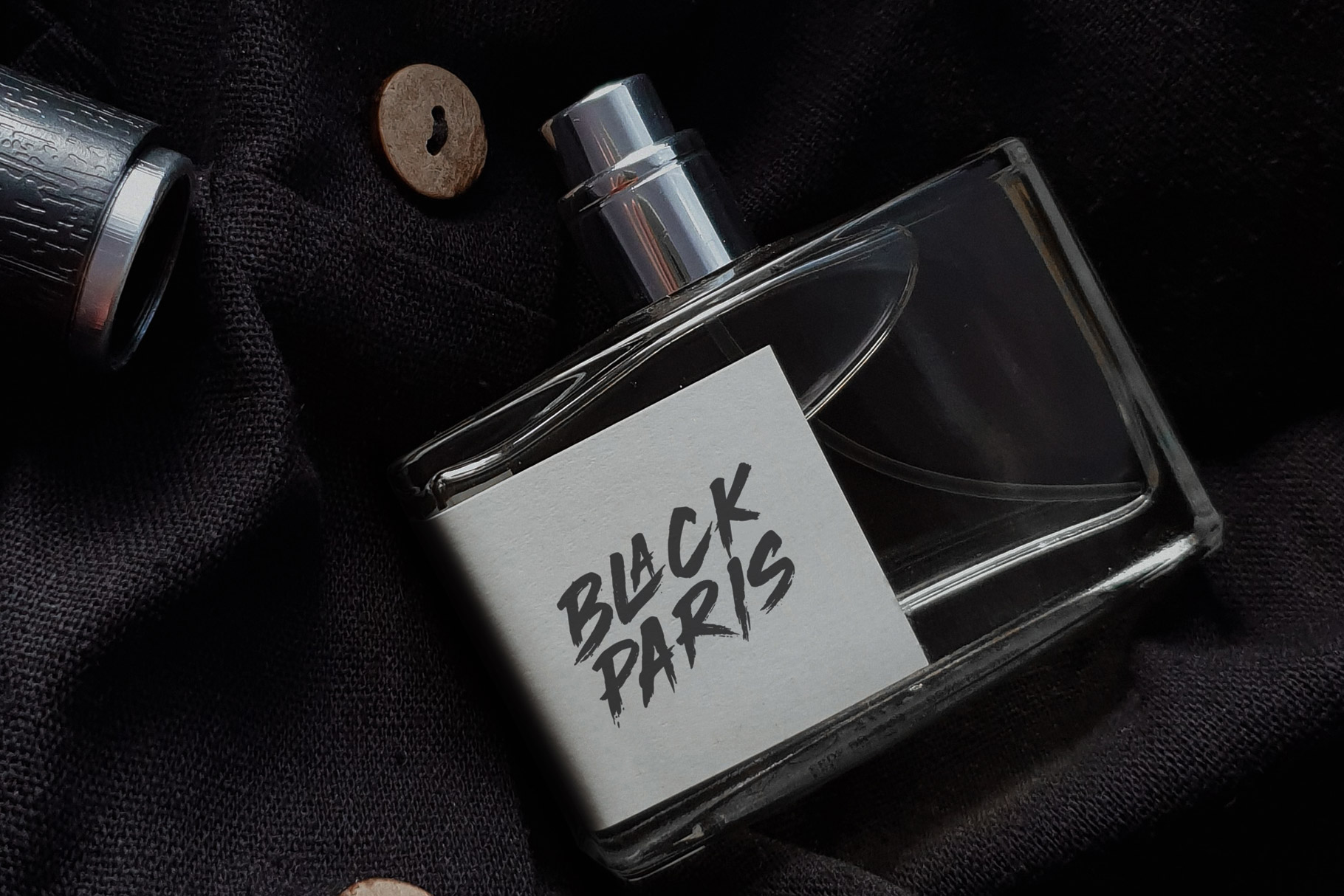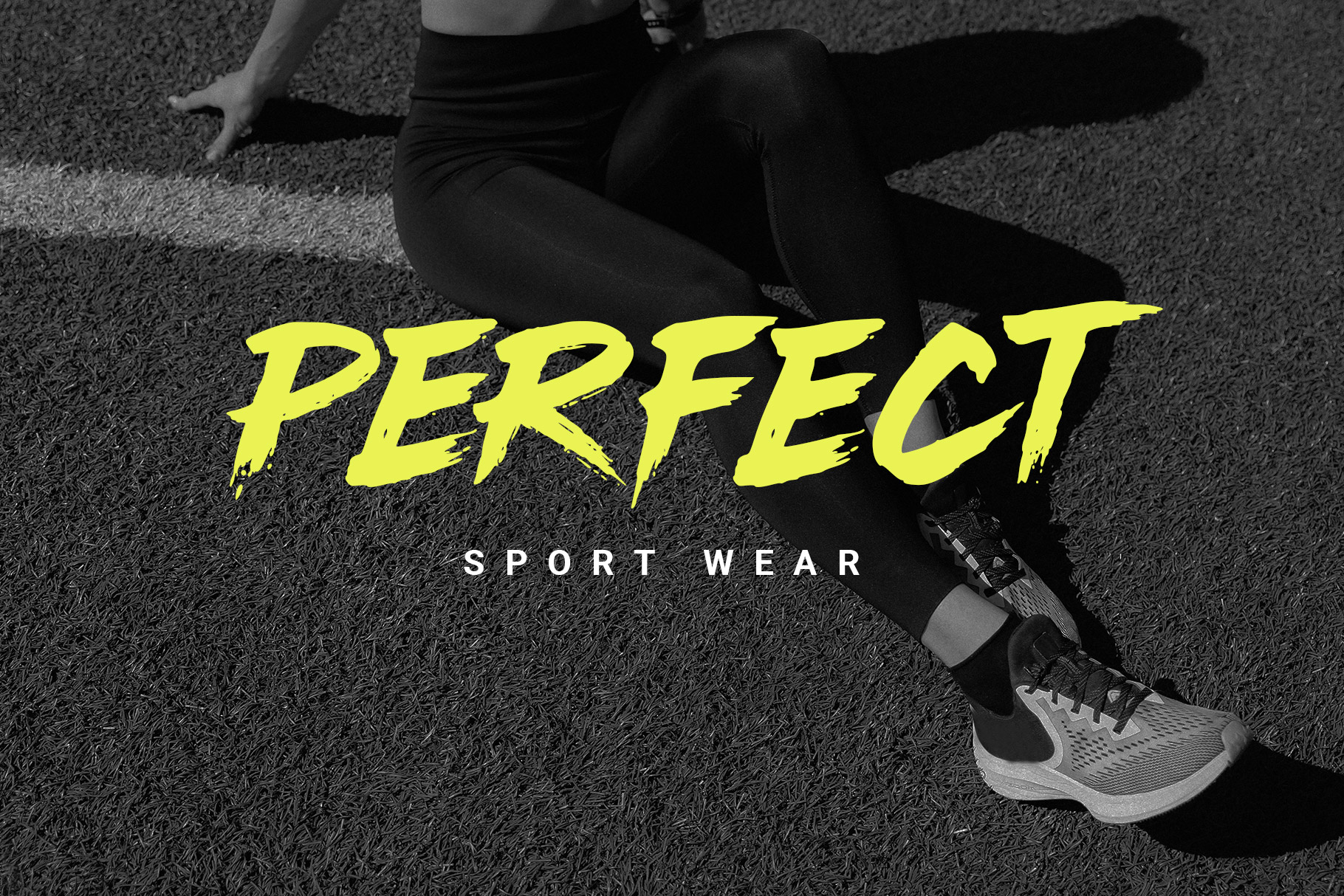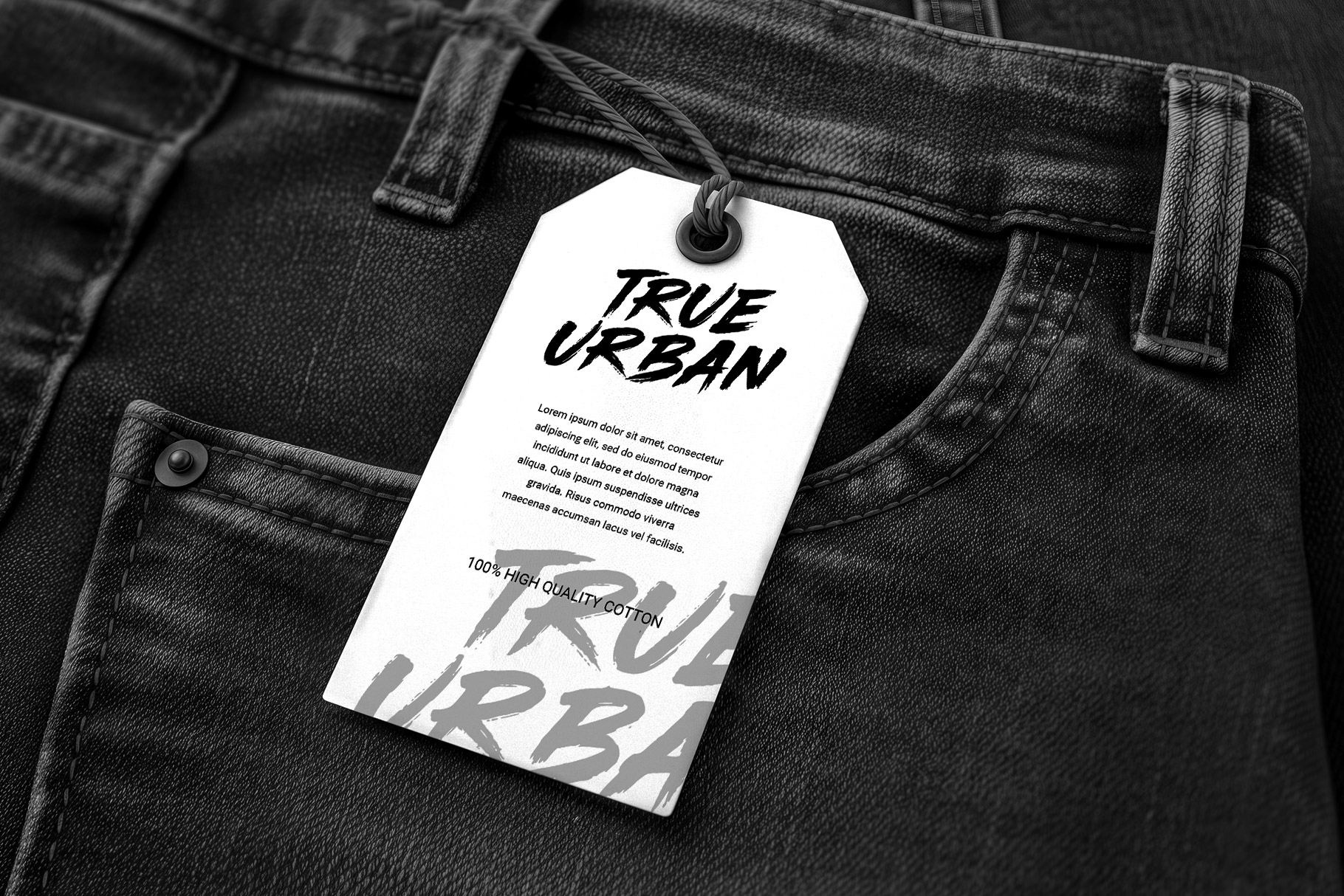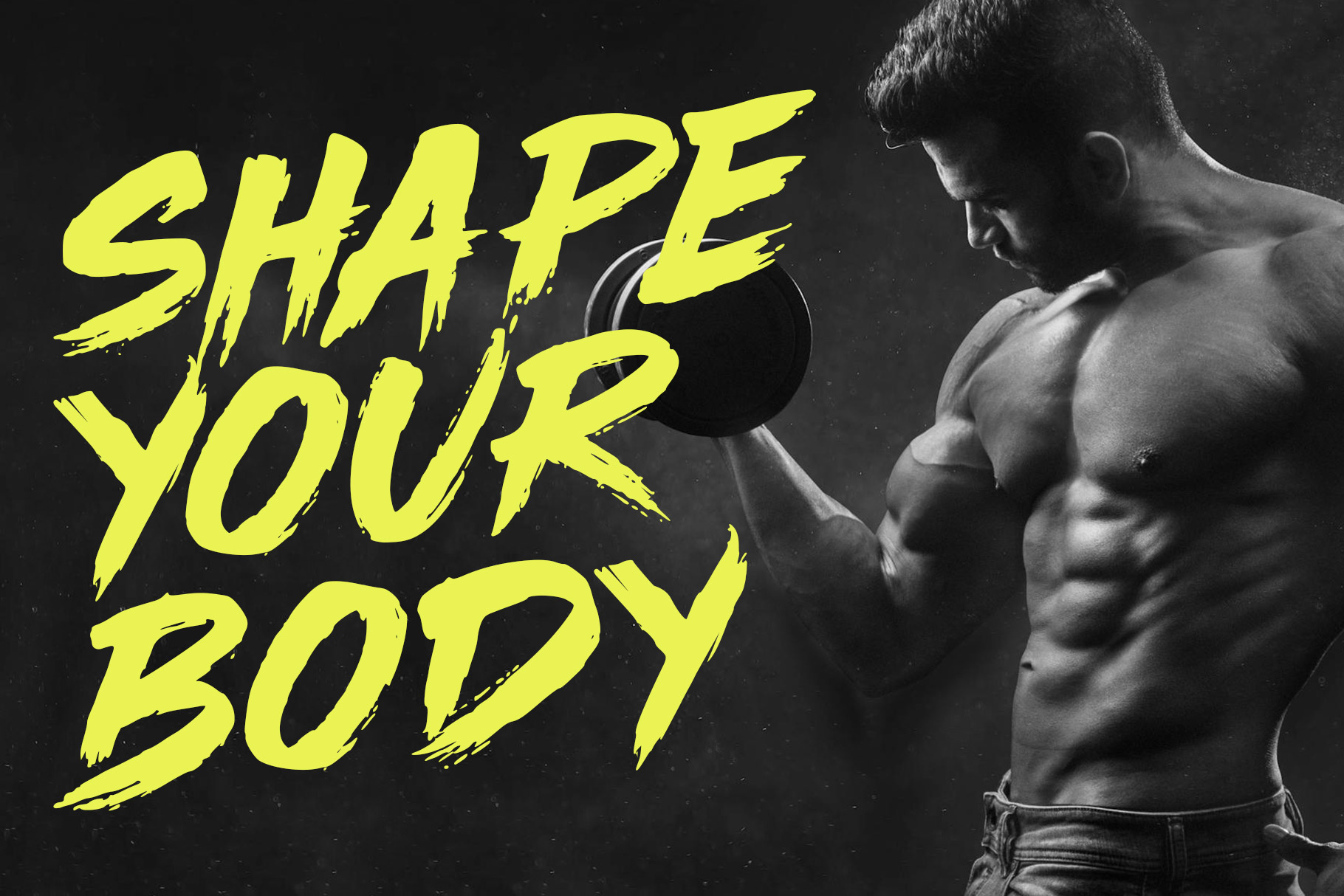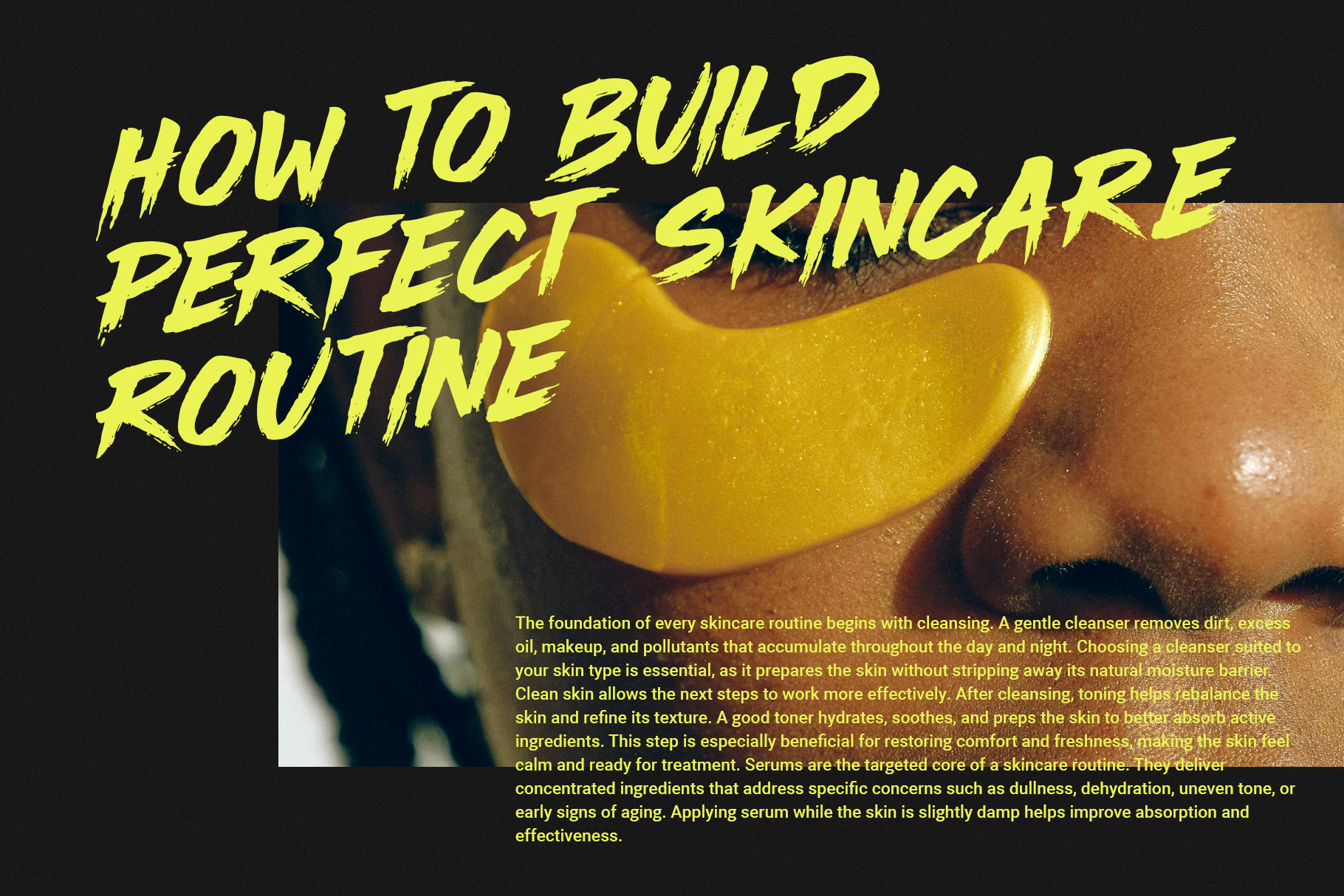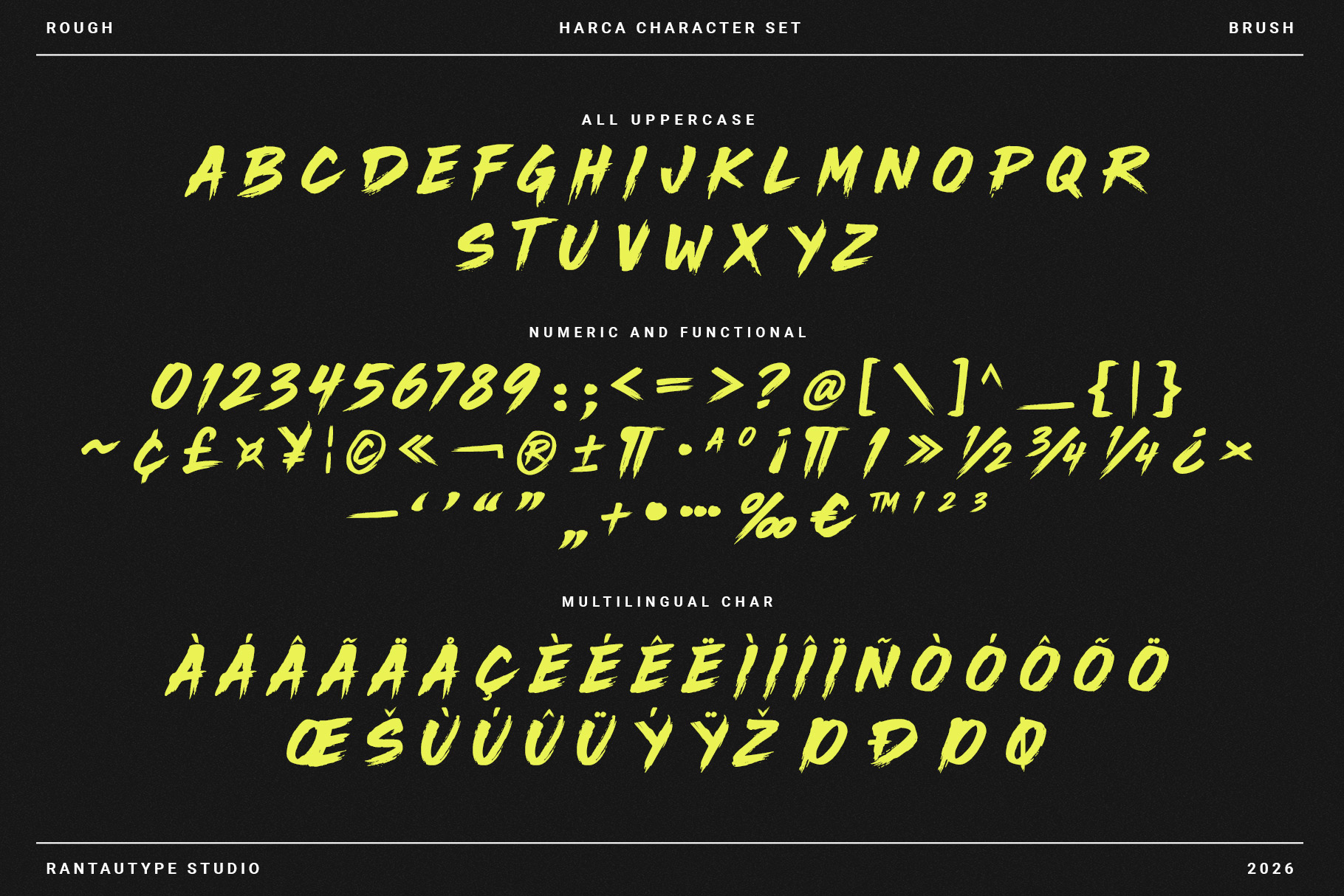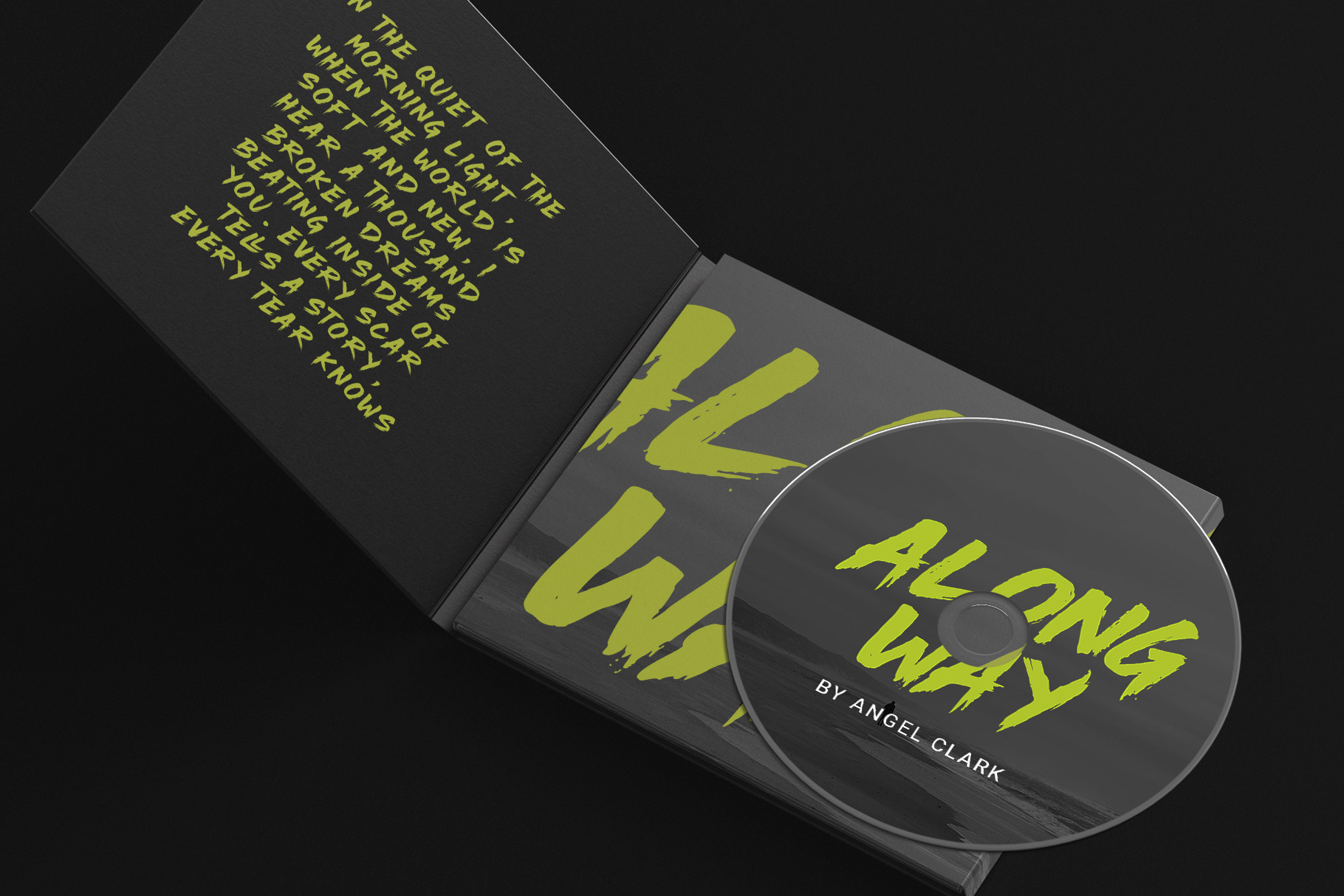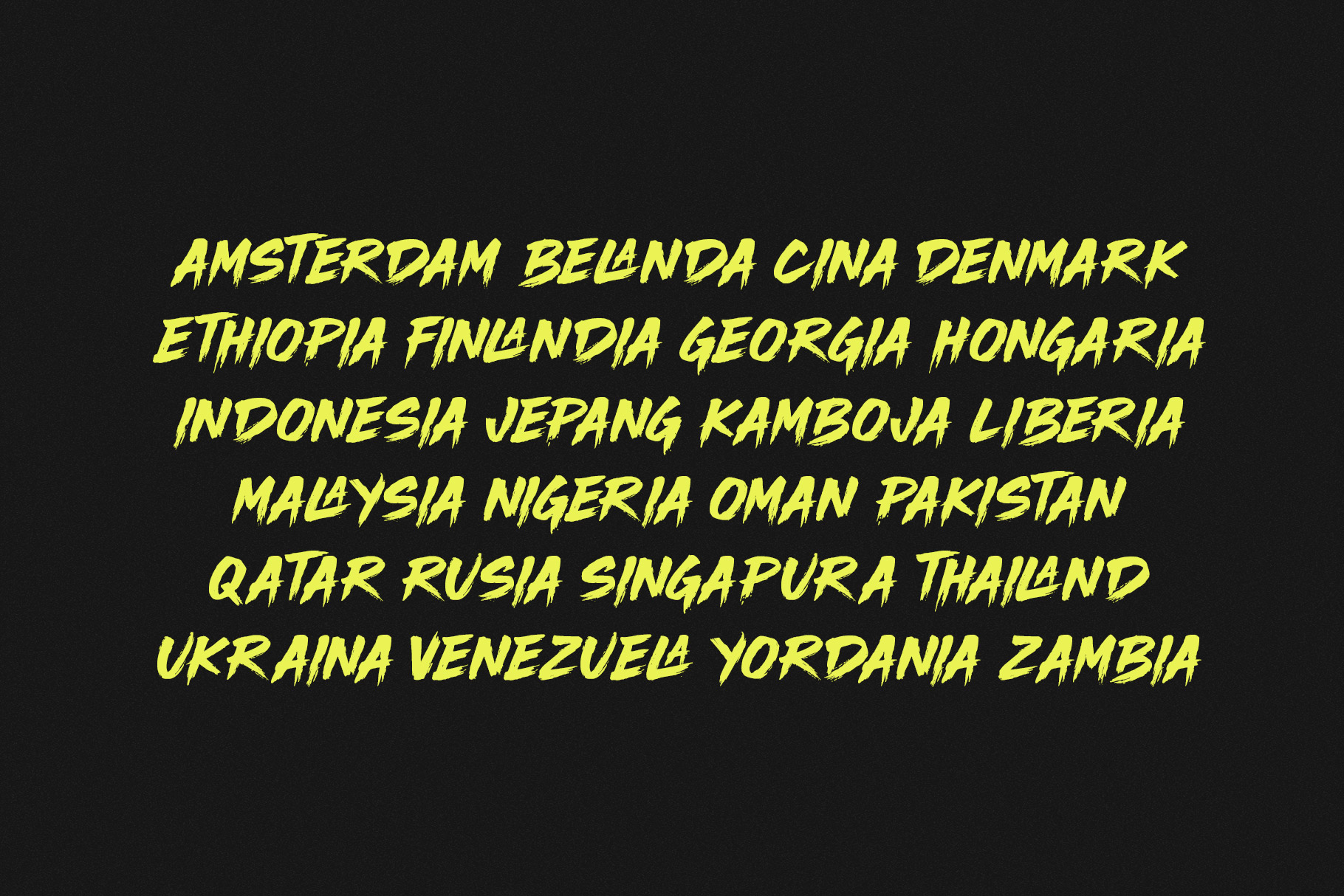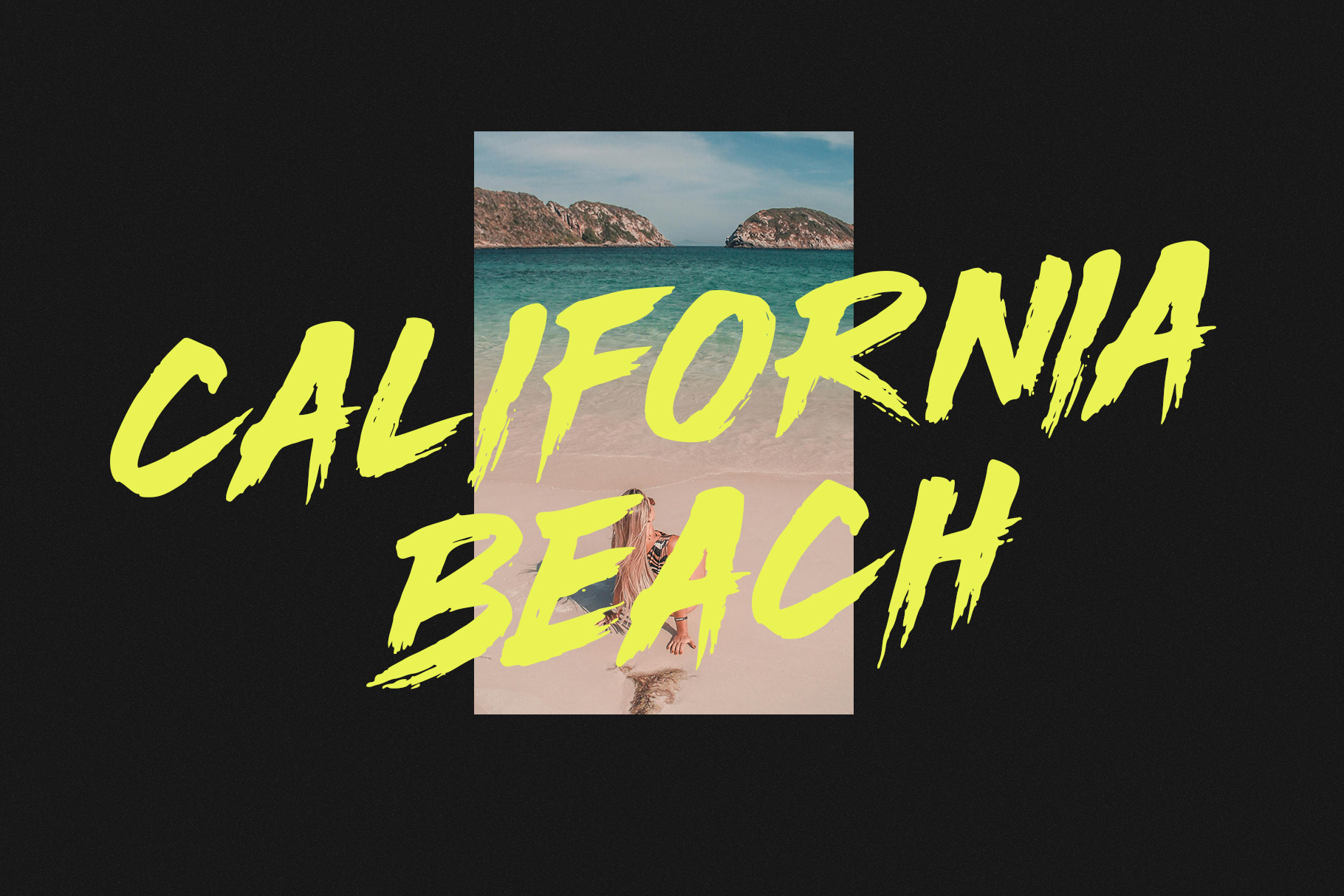
Harca Brush Handwritten Font
Harca is brush handwritten font made by Rantautype Studio made with proud. Harca come with confident and strong brush character. Harca is a perfectly choice for any creative endeavor, creating, modern, lifestyle design such as logotype, title, cover, branding, invitations, wedding designs, display and magazine, social media posts, advertisements, printed quotes, product packaging, corporate brand, product designs, labels, photography, watermarks, special events and any other project with modern touch.